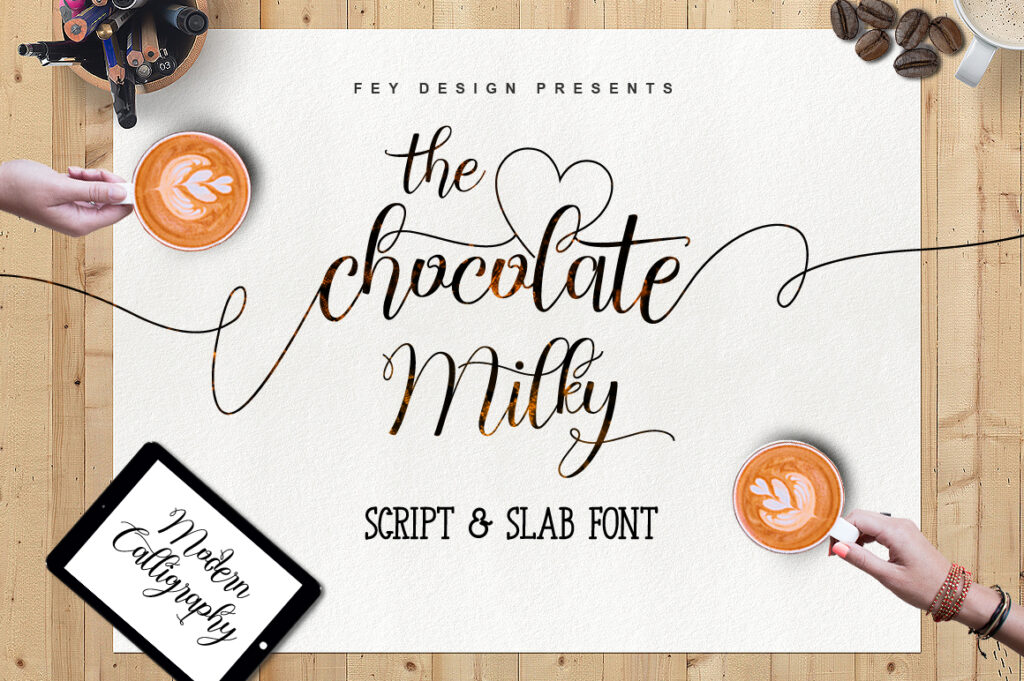
Introducing Chocolate Milky Font: The Ultimate Choice for Romantic and Entrancing Designs
In the world of typography, fonts play a crucial role in making or breaking the visual appeal of a design. Among the numerous fonts available, Chocolate Milky Font stands out for its unique blend of elegance and romance. This beautiful handwritten font is designed to add a touch of sophistication and charm to your designs, making it an ideal choice for headlines and title text.
What Makes Chocolate Milky Font Special?
Chocolate Milky Font boasts an impressive array of features that set it apart from other fonts. Some of its notable features include:
- Tons of Alternates: The font comes with a vast collection of alternate characters, allowing you to experiment with different styles and create unique designs.
- Beautiful Swashes: The font’s swashes add a romantic and entrancing appeal to your designs, making them perfect for headlines and title text.
- Handwritten Style: The font’s handwritten style gives it a personal and elegant touch, making it suitable for a wide range of design applications.
Ideal for Various Design Applications
Chocolate Milky Font is an incredibly versatile font that can be used in a variety of design applications, including:
- Print Design: The font is perfect for creating stunning print designs, such as brochures, posters, and business cards.
- Digital Design: The font can also be used for digital designs, including website headers, social media graphics, and email marketing campaigns.
- Branding: The font’s unique style makes it an excellent choice for branding projects, such as logos and packaging design.
Tips for Using Chocolate Milky Font
To get the most out of Chocolate Milky Font, here are some tips to keep in mind:
- Experiment with Alternates: Take advantage of the font’s alternate characters to create unique and interesting designs.
- Use Swashes Wisely: Use the font’s swashes to add a touch of elegance and sophistication to your designs.
- Pair with Other Fonts: Chocolate Milky Font can be paired with other fonts to create a stunning contrast and add visual interest to your designs.
The Benefits of Using Chocolate Milky Font
Using Chocolate Milky Font in your designs can have numerous benefits, including:
- Unique and Memorable Designs: The font’s unique style can help you create designs that stand out and leave a lasting impression.
- Emotional Connection: The font’s romantic and entrancing appeal can help create an emotional connection with your audience.
- Professional and Elegant Look: The font’s elegant style can give your designs a professional and polished look.
Who Can Benefit from Chocolate Milky Font?
Chocolate Milky Font is an excellent choice for a wide range of designers and businesses, including:
- Graphic Designers: Graphic designers can use the font to create stunning designs for their clients.
- Branding Agencies: Branding agencies can use the font to create unique and memorable brand identities.
- Small Business Owners: Small business owners can use the font to create professional and elegant marketing materials.
In conclusion, Chocolate Milky Font is a beautiful and versatile font that can add a touch of elegance and romance to your designs. With its tons of alternates, beautiful swashes, and handwritten style, it’s an ideal choice for headlines and title text. Whether you’re a graphic designer, branding agency, or small business owner, Chocolate Milky Font is an excellent choice for creating unique and memorable designs.